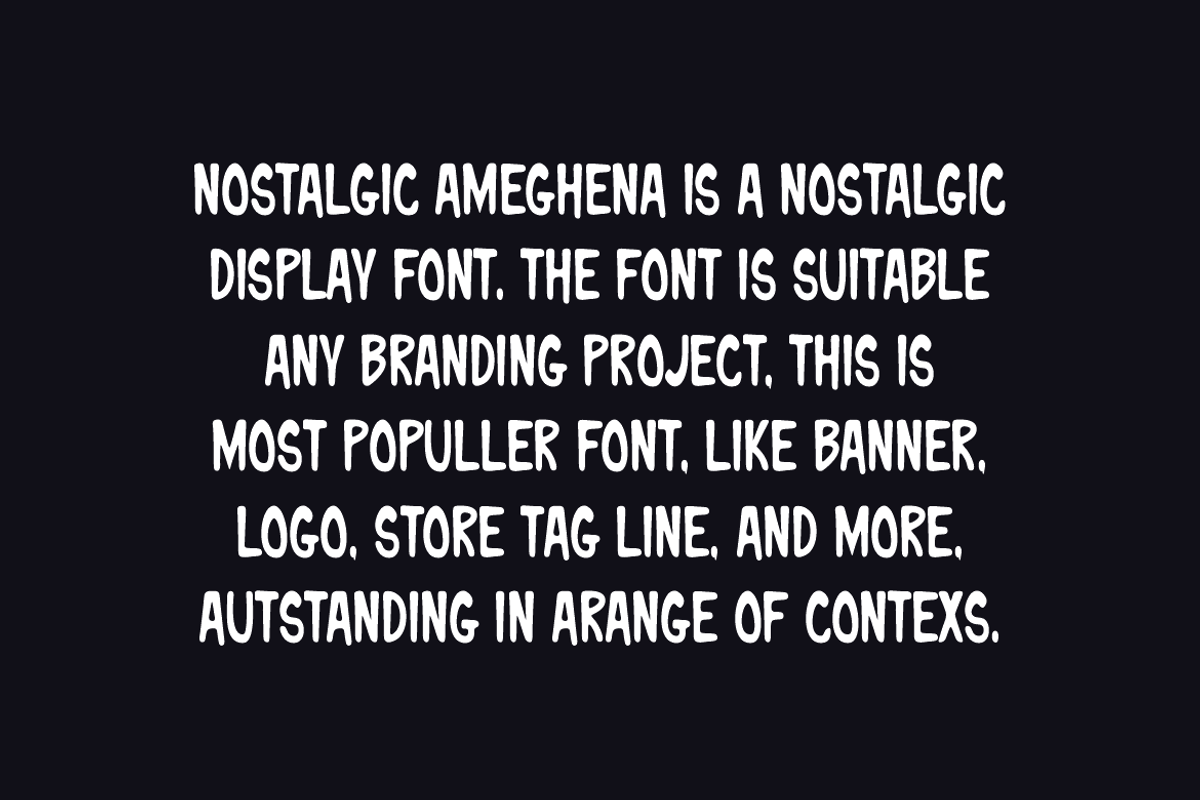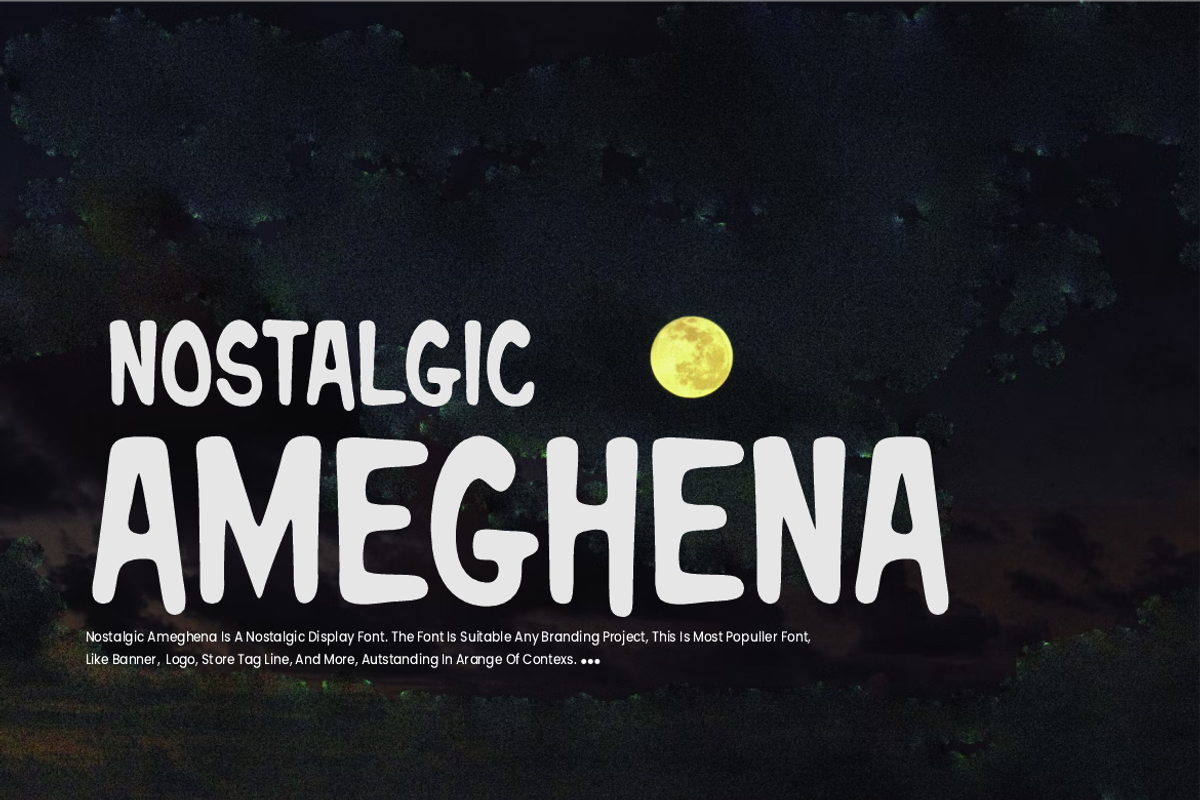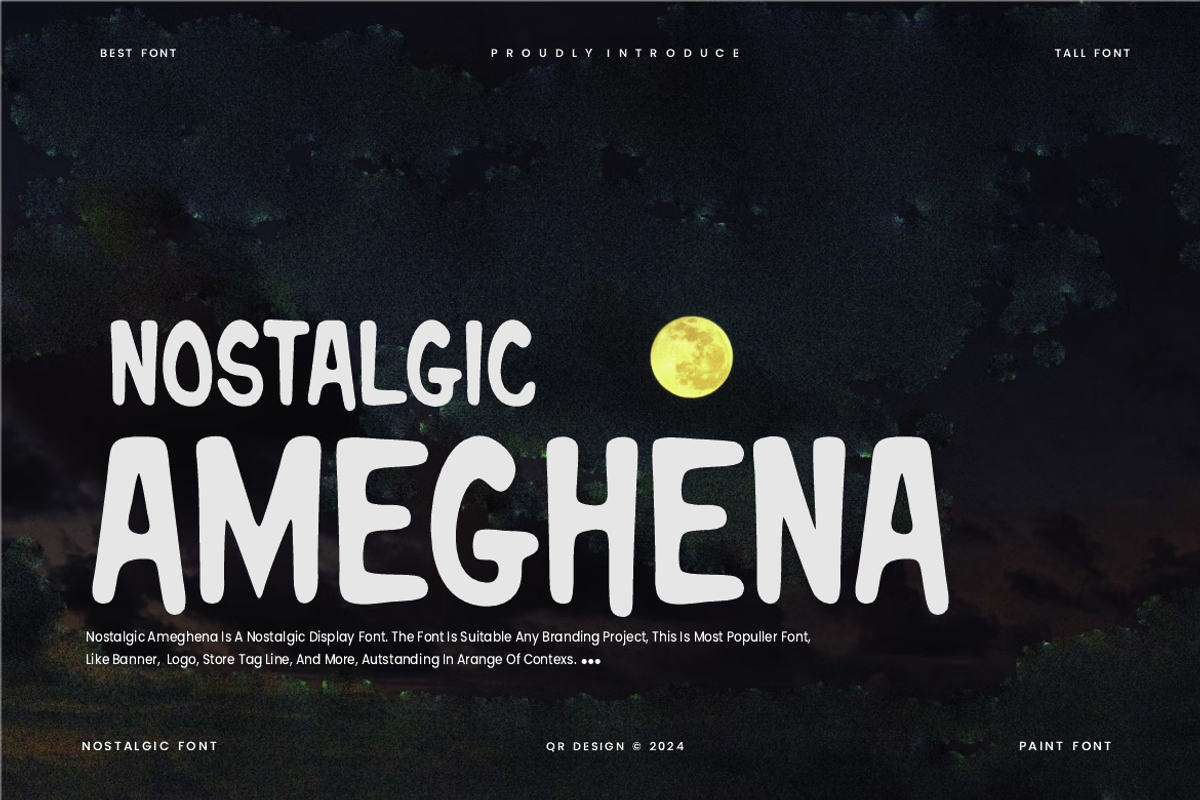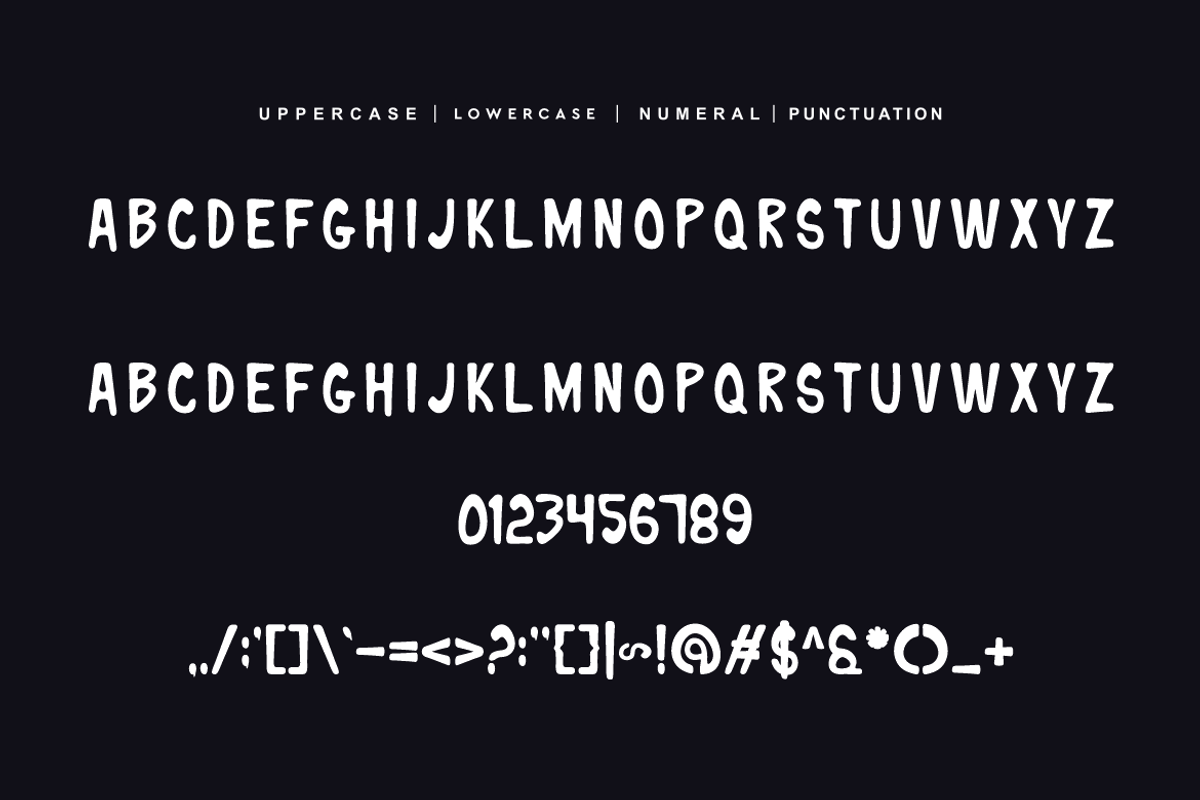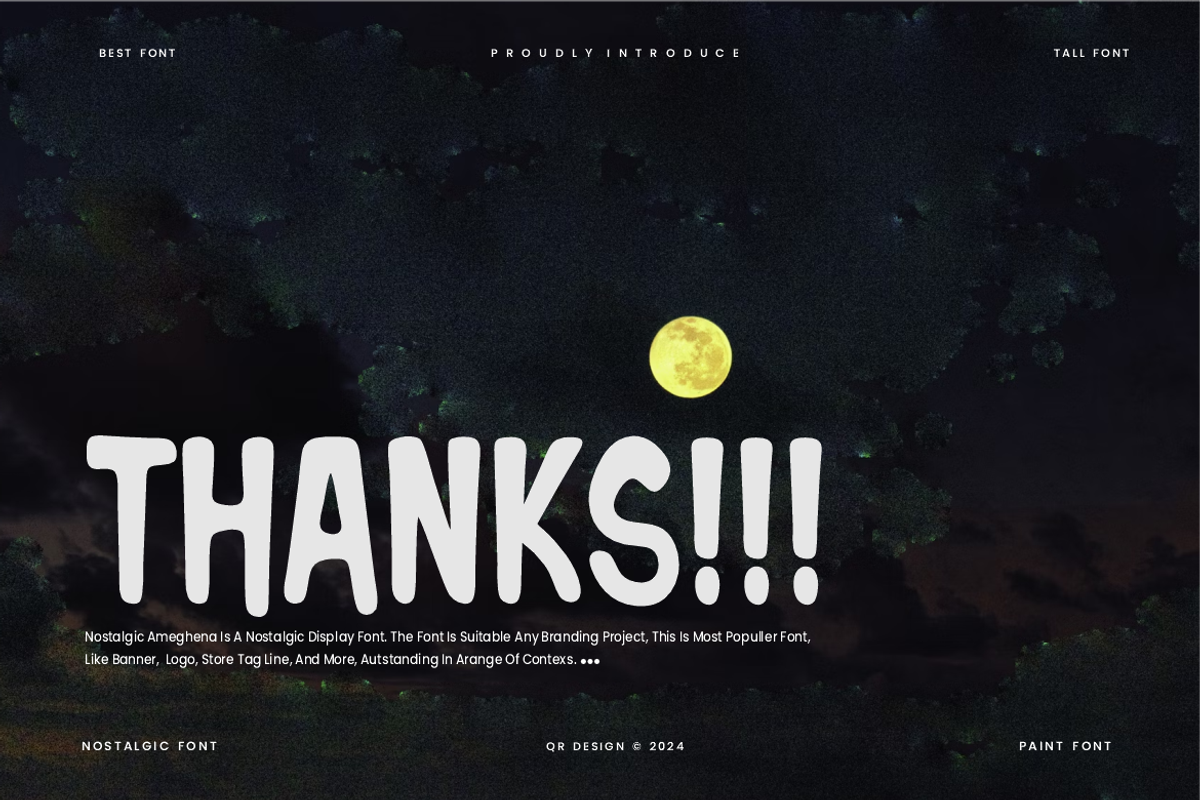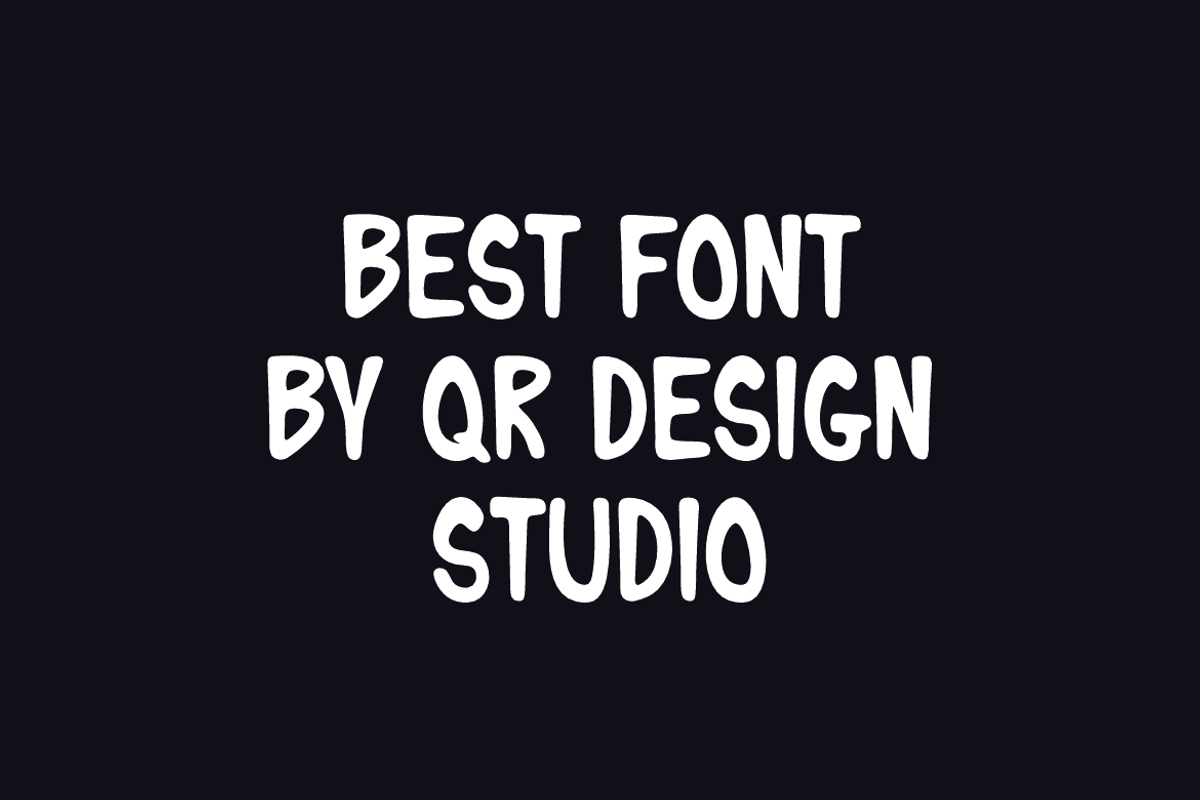
Nostalgic Ameghena Font
Nostalgic Ameghena Font is a best and authentic display font. The font is suitable for any branding project like poster, logo, sport, and many more. Outstanding in a wide range of contexts.